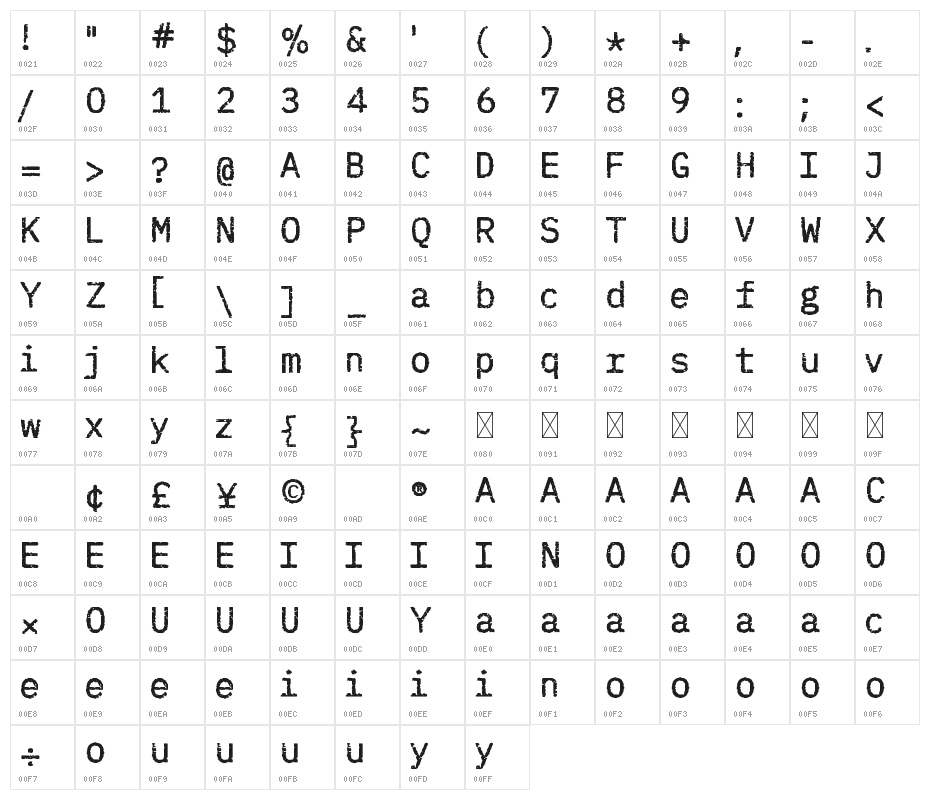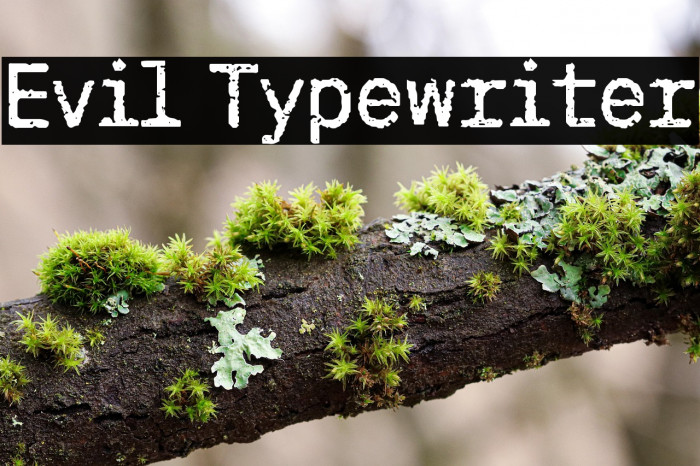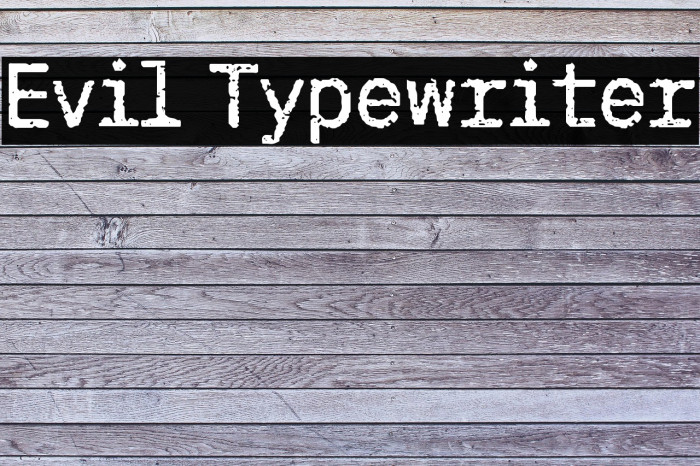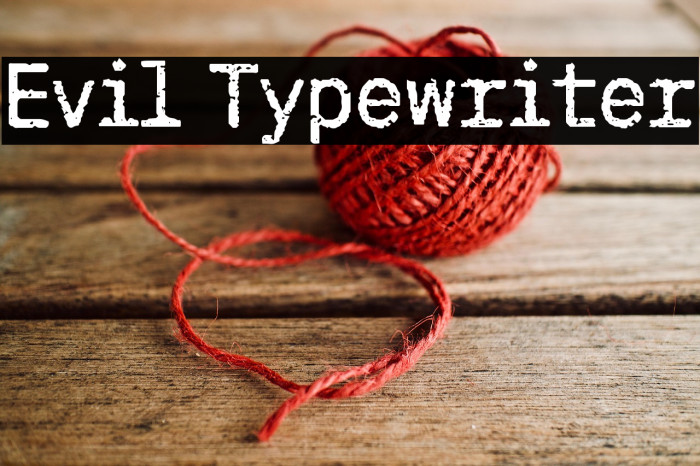
Evil Typewriter Font
Evil Typewriter Description
This font features a distressed, grunge style reminiscent of old typewriter text. Each character appears as if it has been stamped or printed with worn-out ink, giving it a unique, textured appearance. The letters are bold and slightly irregular, adding to the vintage and rugged aesthetic. The uppercase and lowercase letters maintain a consistent style, while the numerals and special characters complement the overall look. This font evokes a sense of nostalgia and imperfection, making it ideal for projects that require a touch of authenticity and character.
| Proposed Projects | Ideal for vintage-themed designs, horror movie posters, retro advertisements, and artistic projects that require a rugged, authentic feel. |